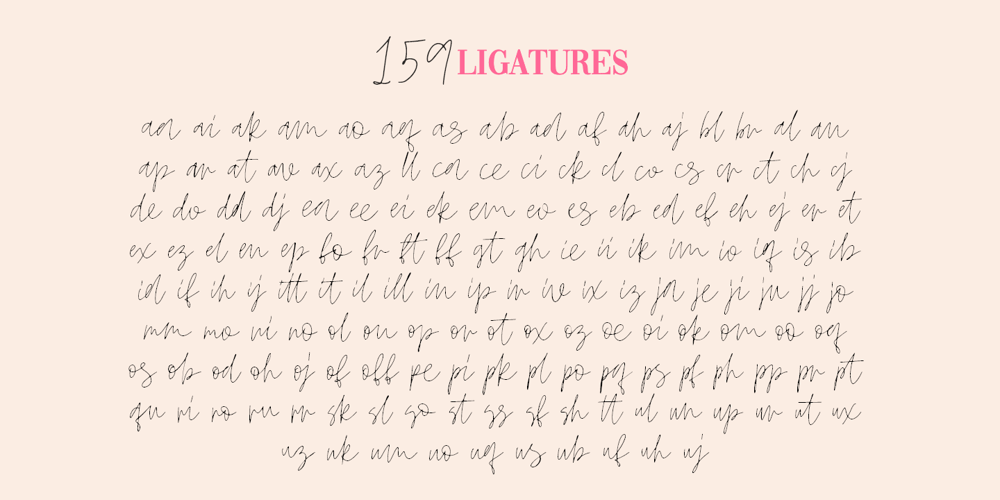
Joleigh
Joleigh font
Joleigh Font Family was designed by Dmitrii Chirkov and published by Supfonts. Joleigh contains 1 styles and family package options. This font is a new Signature Script with a floating baseline, ligatures, swashes and multilingual support 🙂 Joleigh Script will look beautiful on holiday invitations, wedding invites and stationery, logos, and more. Test it out below to see how it could look for your next project! Includes: Uppercase and lowercase Numbers and punctuation Foreign language support 159 ligatures Check out my blog: www.instagram.com/dmitriychirkov pinterest.com/dmitriychirkov7 Enjoy!